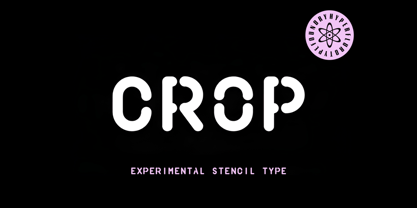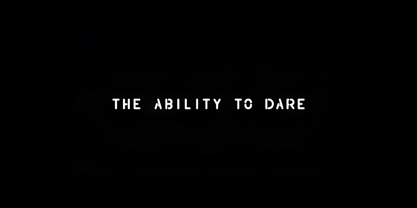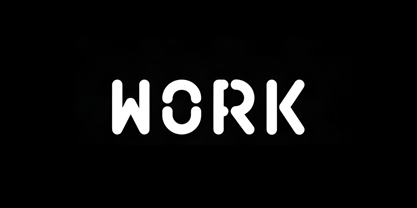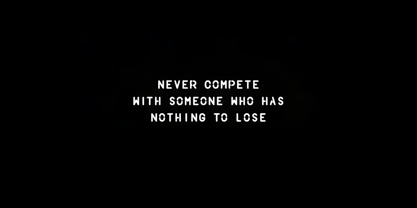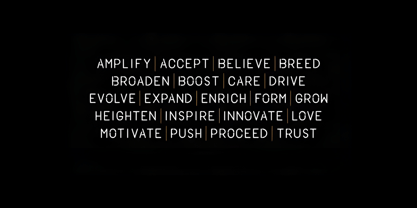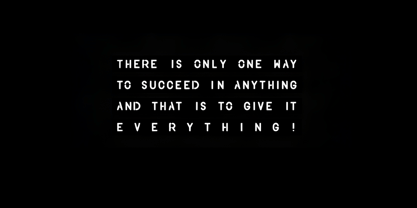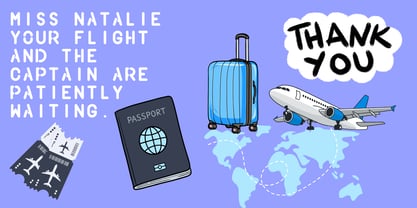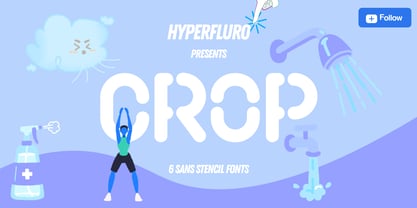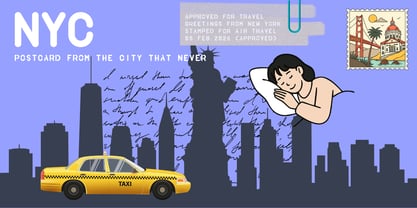
Crop™
by HyperFluro
The Crop Font Family was designed by Alex Haigh and published by HyperFluro. Crop contains 6 styles and family package options.
Crop is the guy who works till 3am, striving for greatness. Crop is the one in the gym at six in the morning, pushing harder every time. Taking no for an answer, just isn't part of the deal. Crop is the one with fire in his heart and eye intense enough to achieve the unthinkable. If you've never stopped pushing boundaries, if you think second place isn't worth getting out of bed for, if you can stand on the top of the world and ask, 'What's next?' - Crop might just be the one for you!